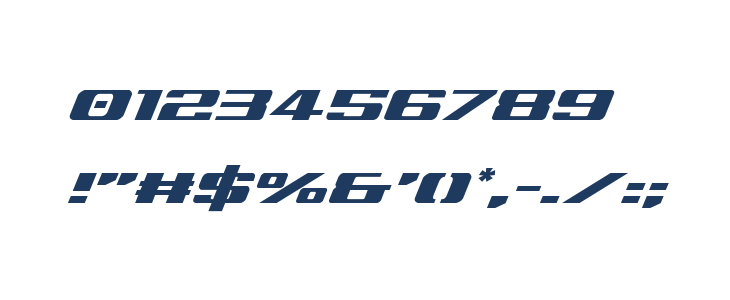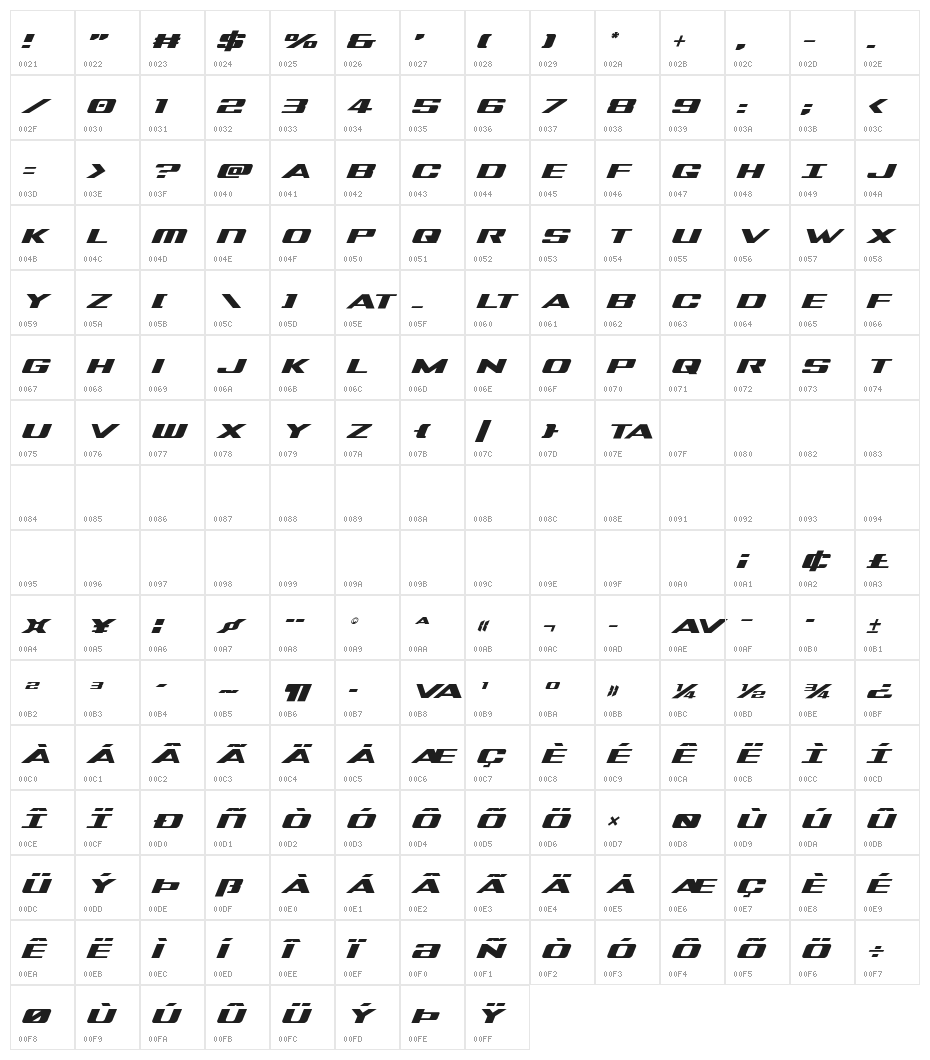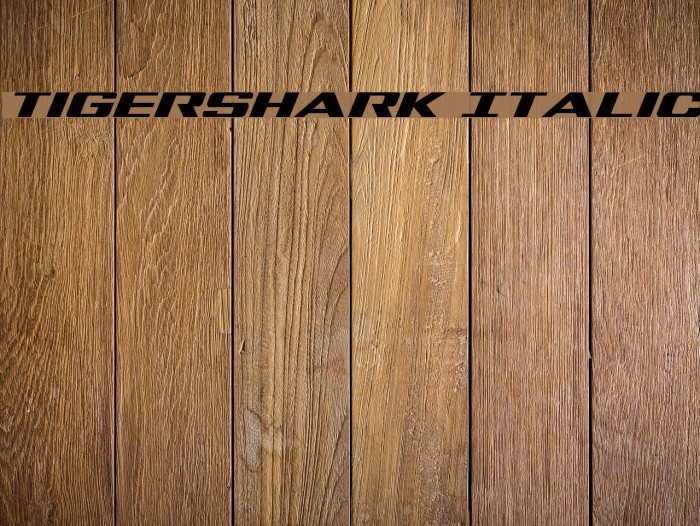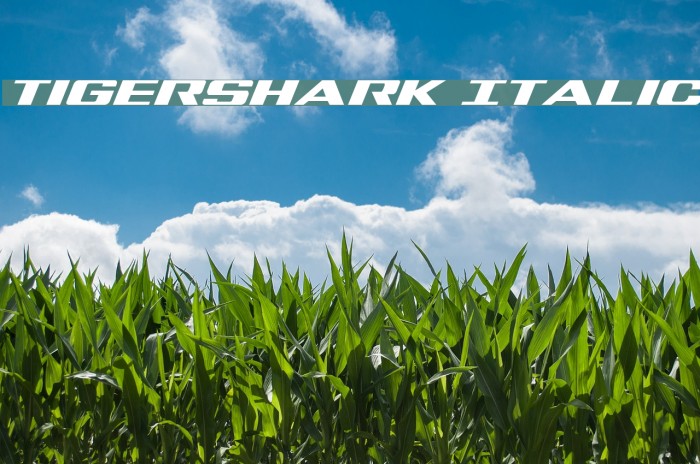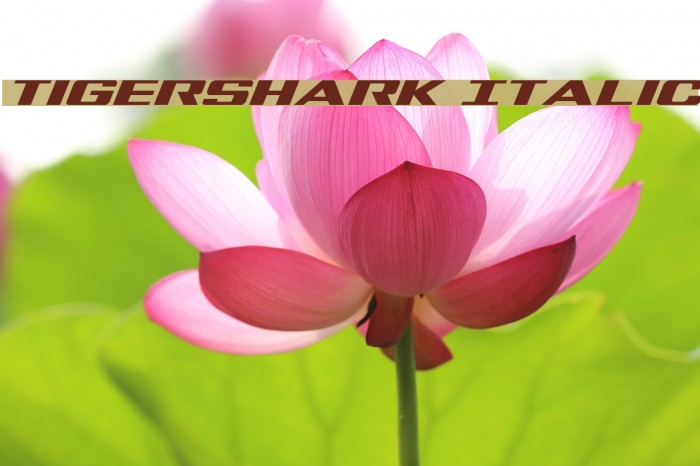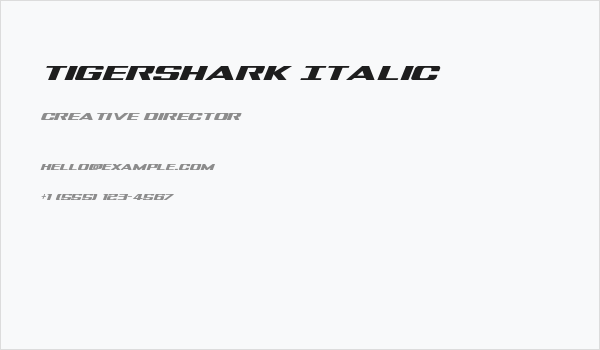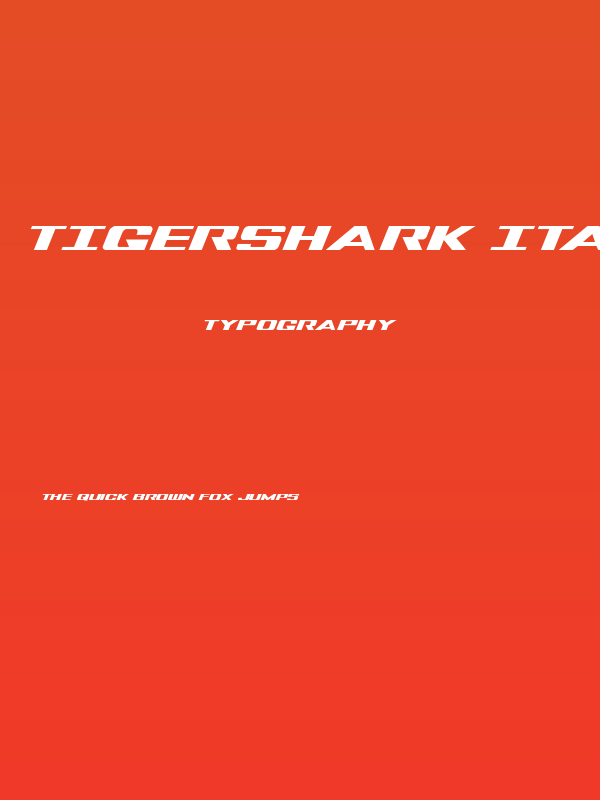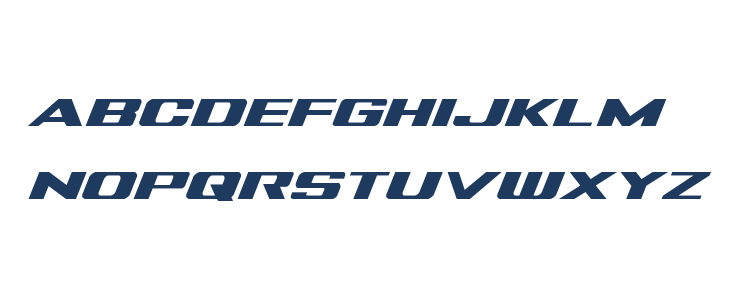
Tigershark Italic Font
Tigershark Italic Description
This font features a dynamic and angular design, characterized by its italicized and bold appearance. The letters are sharply cut with a futuristic flair, giving it a sense of motion and speed. The uppercase and lowercase letters maintain a consistent style, with slanted lines and pointed edges. The numbers and special characters follow the same aesthetic, ensuring uniformity across all glyphs. The overall look is modern and aggressive, making it suitable for projects that require a bold and impactful statement.
| Proposed Projects | Ideal for sports branding, automotive advertisements, video game titles, and dynamic posters. |